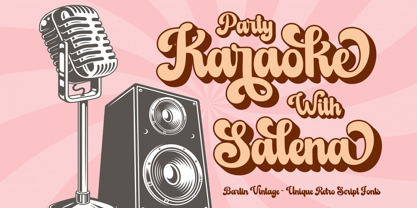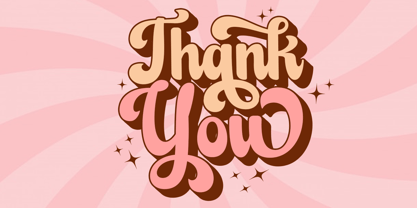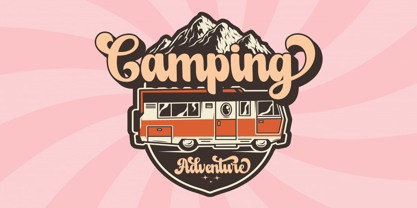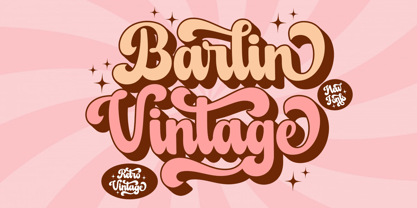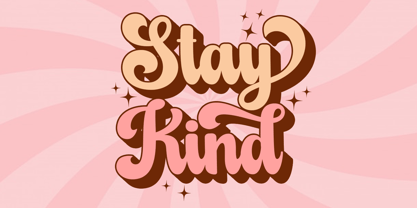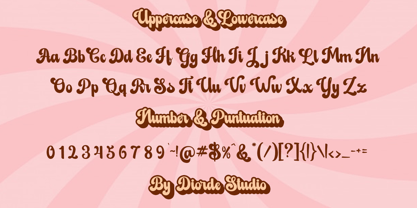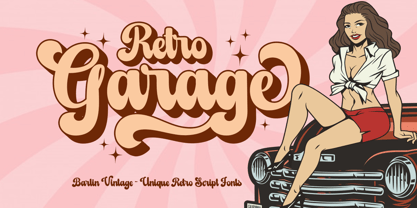
Barlin Vintage
by Deorde Studio
The Barlin Vintage Font Family was designed by Teuku Syarkawi and published by Deorde Studio. Barlin Vintage contains 1 styles. More about this family
Barlin Vintage is a Display Script and Retro font. It is bold, confident and dynamic and can add a lot of nostalgic character to your designs. This retro style is perfect to apply in various formal forms such as invitations, labels, restaurant menus, logos, fashion, makeup, stationery, novels, magazines, books, greeting/wedding cards, packaging, labels or any type of advertising purposes and you will definitely impress your audience. . . . . . . This font is PUA encoded, which means you can access all glyphs and swashes easily! Enjoy our products and feel free to contact us for support! Features: - Uppercase & lowercase - Numbers & punctuation - Multilingual - Ligatures - Alternates - Swash - PUA Code Need help or have questions, let me know. I'm happy to help. Thanks & Congratulations on the Design!
Designers: Teuku Syarkawi
Foundry: Deorde Studio